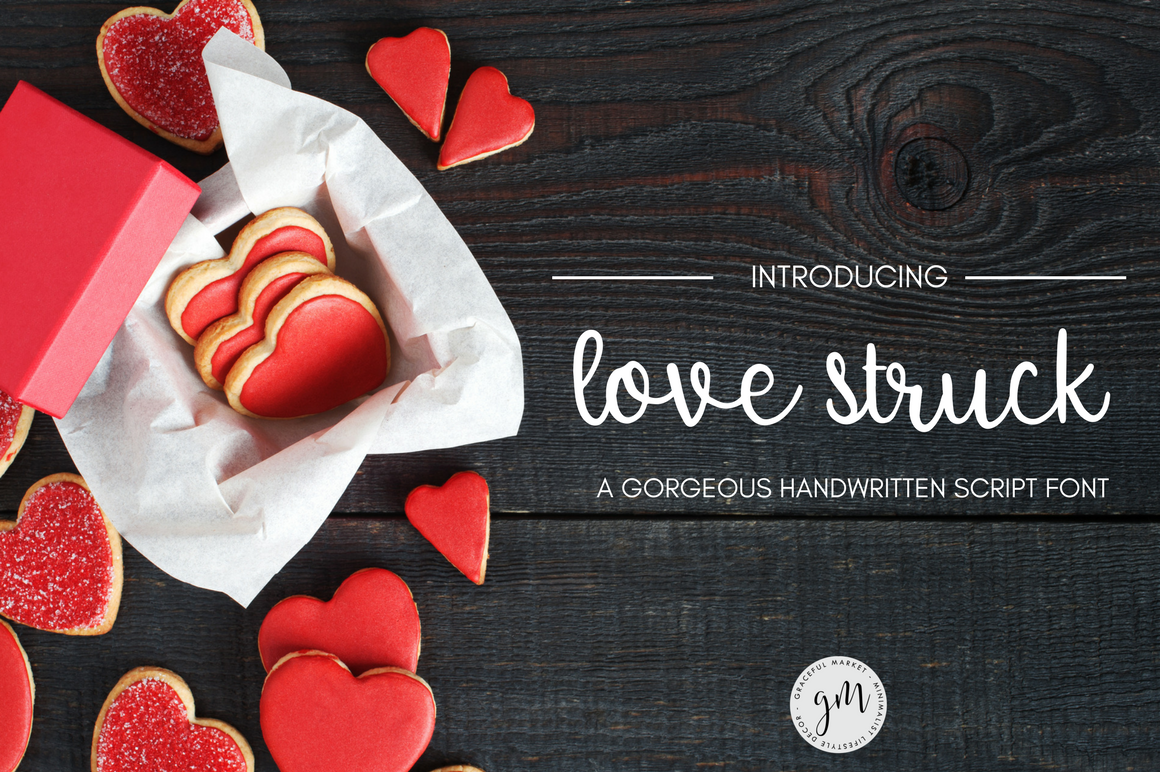
Love Struck Script Handwritten Font
Introducing Love Struck, a simple handwritten calligraphy script font.
Great for wedding invitations, social media infographics, banners, etc.